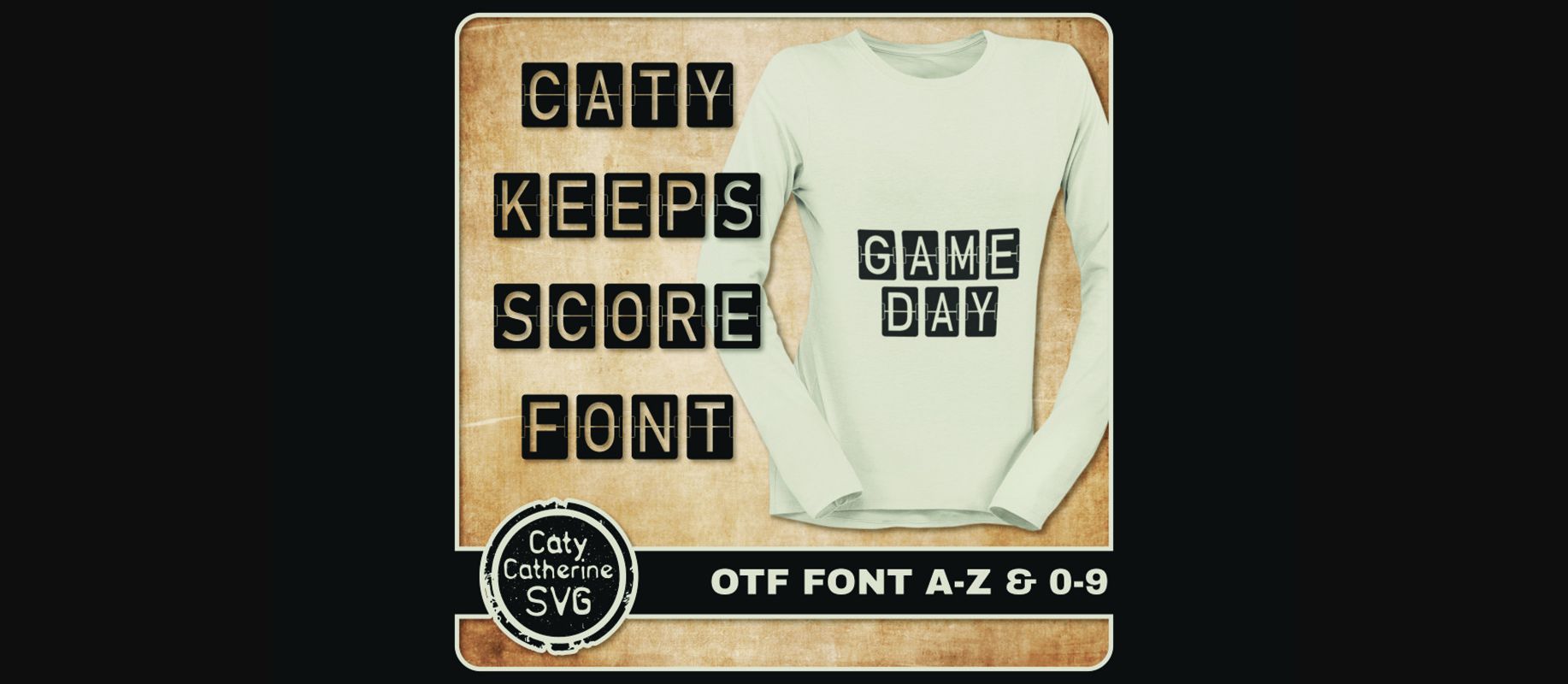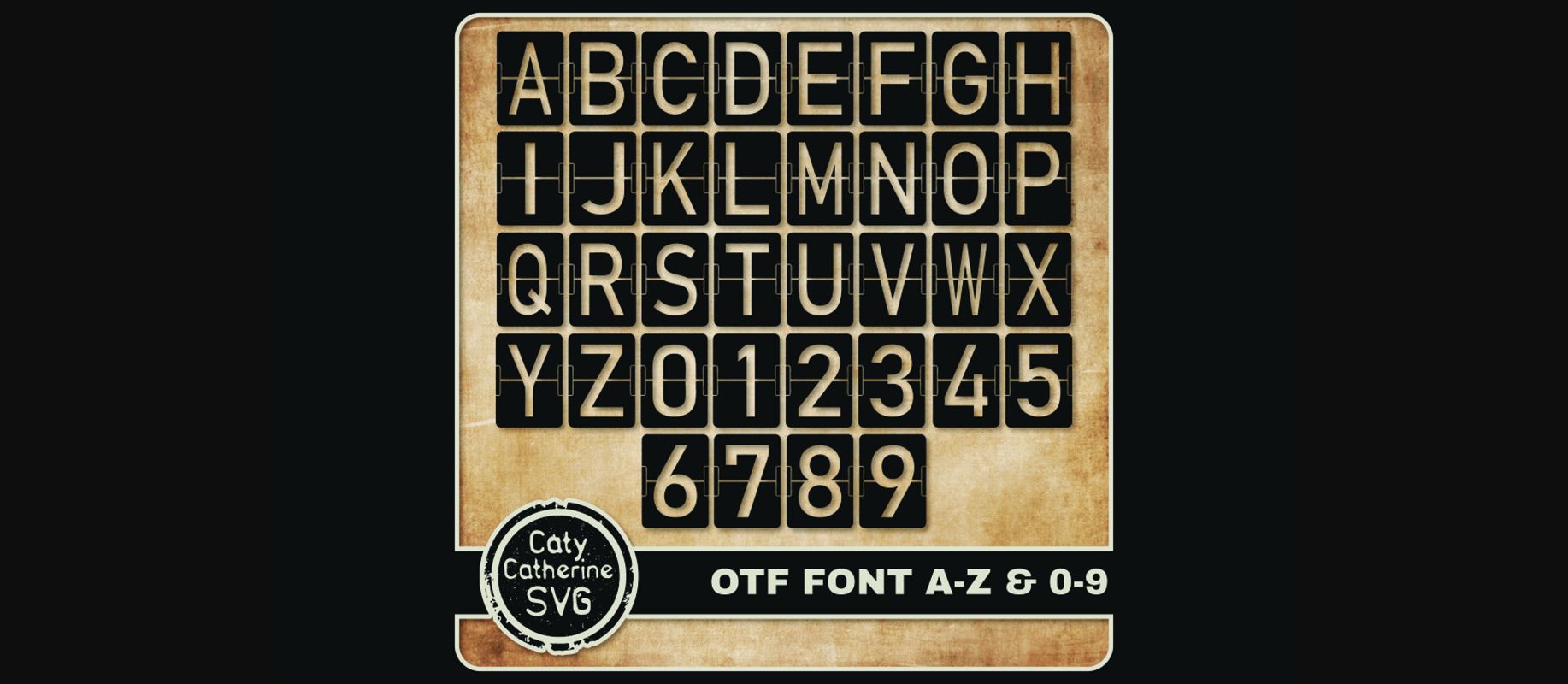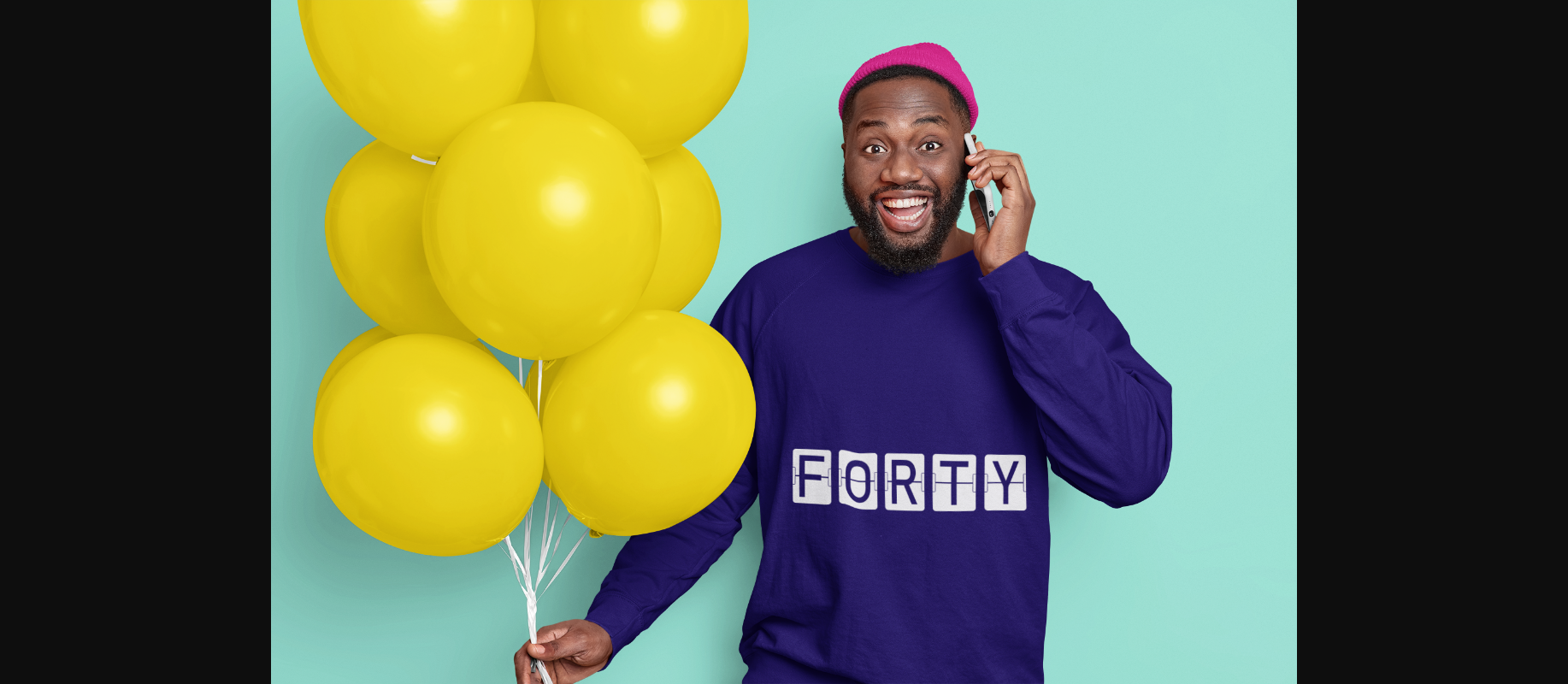
Caty Keeps Score Font
About Caty Keeps Score Font
Caty Keeps Score is a cool and fun decorative font. No matter the topic, this font will be an incredible asset to your fonts’ library, as it has the potential to elevate any creation.